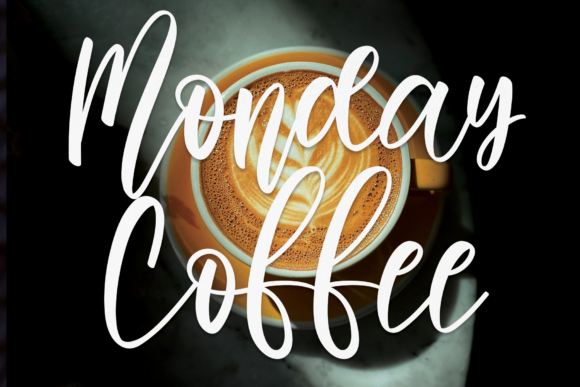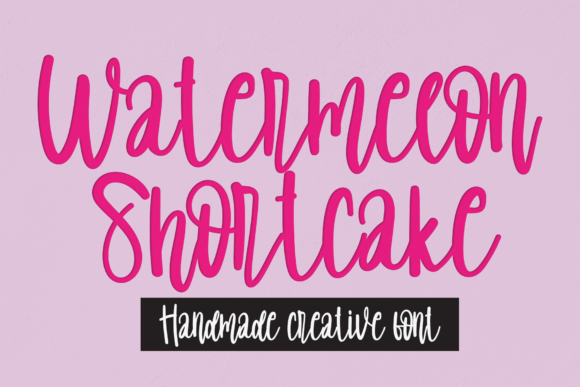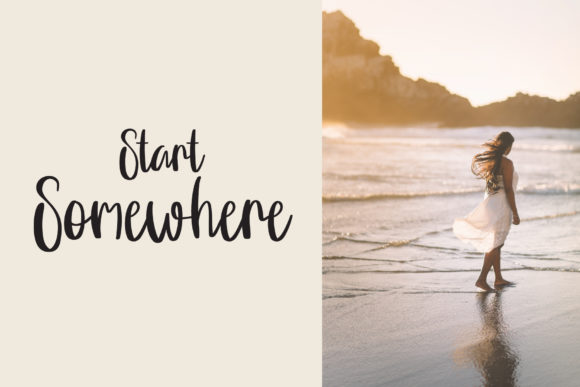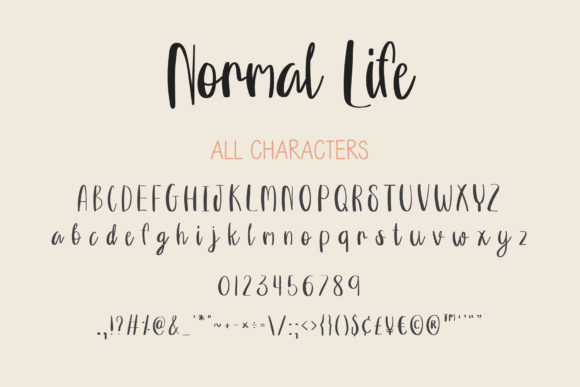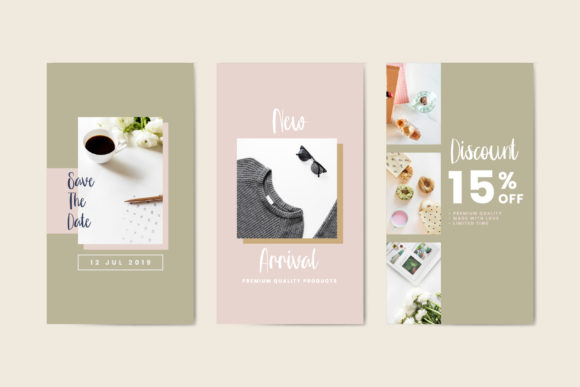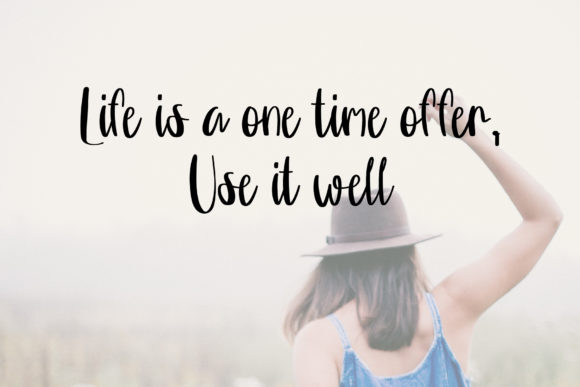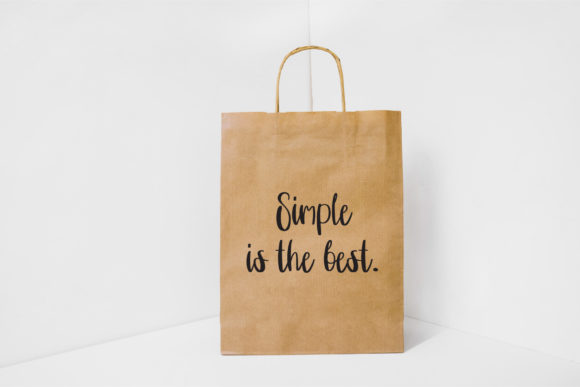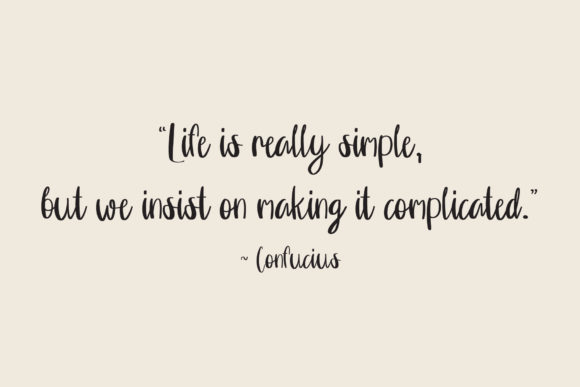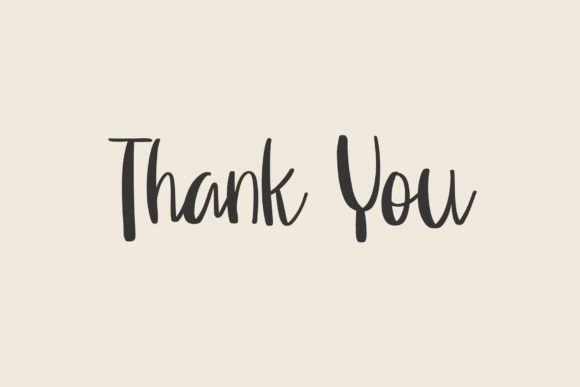
Normal Life Font
About Normal Life Font
Normal Life is a simple and casual handwritten font. This trendy font will look gorgeous on a variety of design ideas. It will add a joyful and romantic touch to each of your projects!